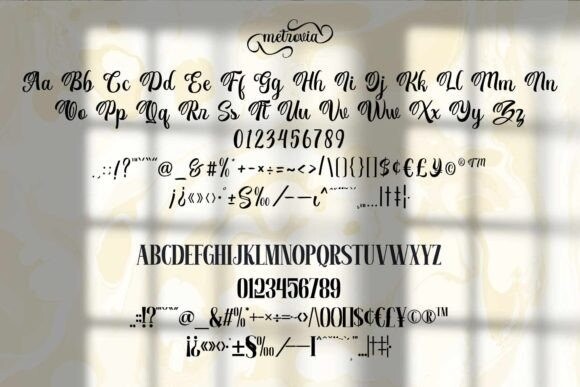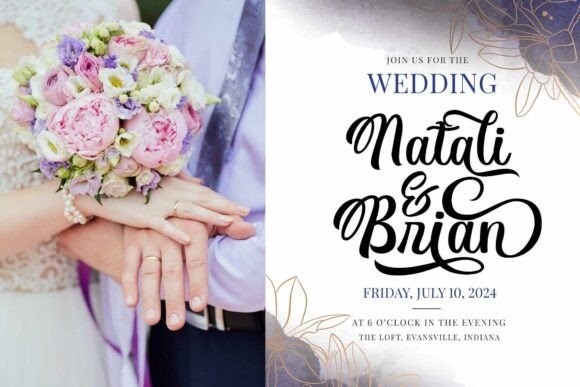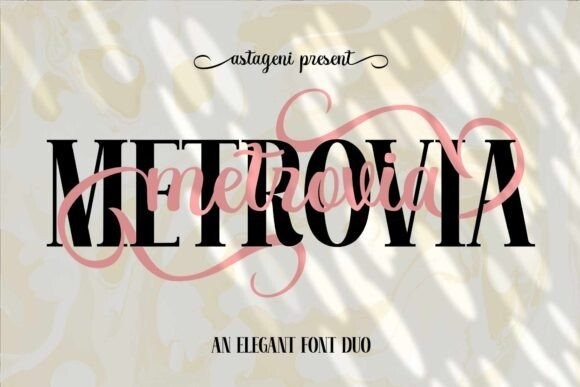
Metrovia Duo Font
Metrovia Font, An Elegant Font duo. Giving you a simple, yet wonderful solution to your branding. This font is more than just another font duo. It encapsulates the essence of modernity and elegance. With elegance and passion edged into every curve and twist of this font – you’ll be sure to boost your sales and make the best impressions.